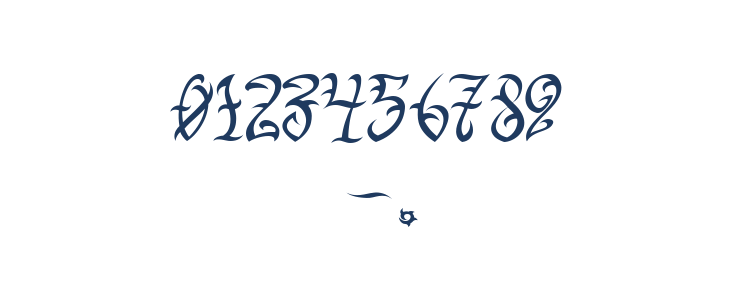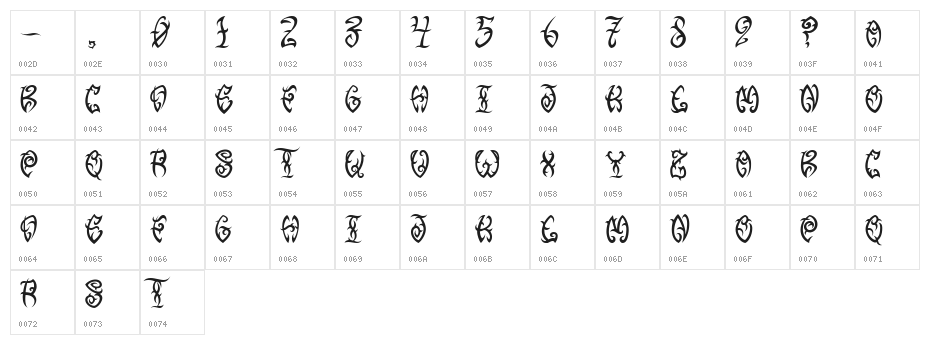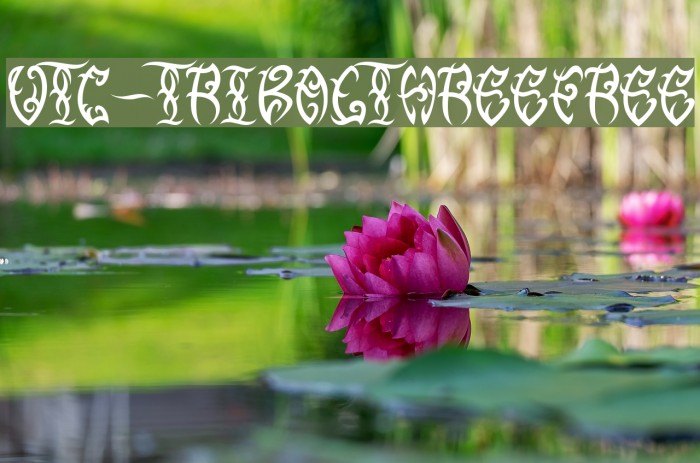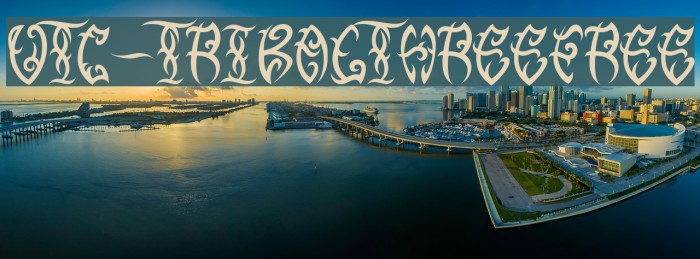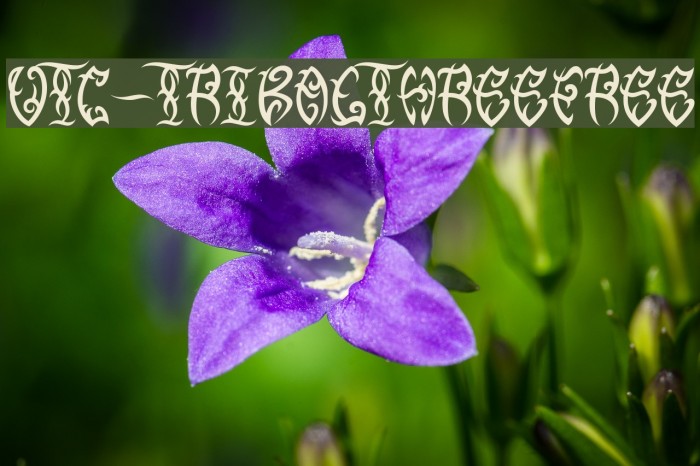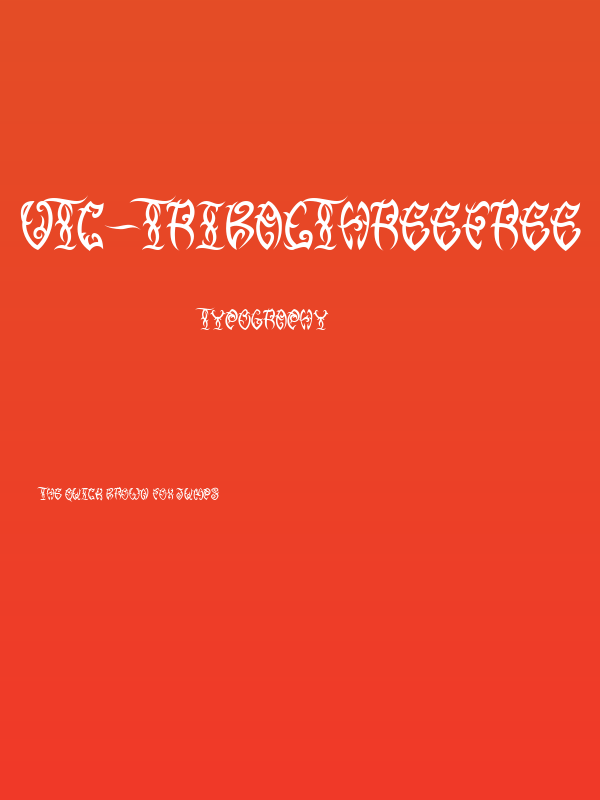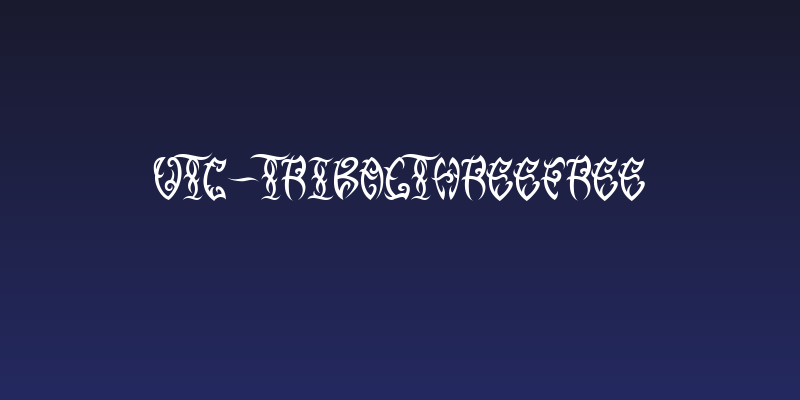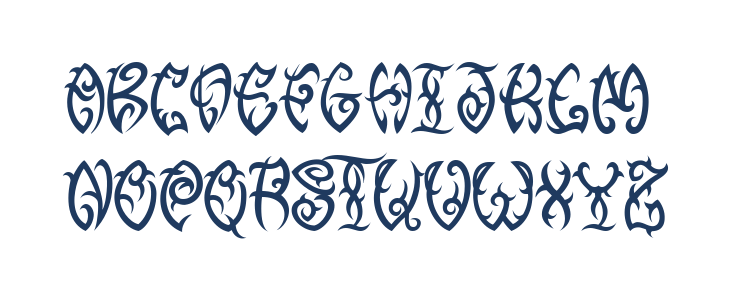
VTC-TribalThreeFree Font
VTC-TribalThreeFree Description
This font features a bold and intricate tribal design, characterized by sharp edges and flowing curves that intertwine to create a sense of movement and energy. The letters are highly stylized, with each character resembling a piece of tribal art, making it visually striking and unique. The font's decorative nature is evident in its elaborate details, which give it a strong presence and an artistic flair. It's suitable for projects that require a bold statement or a touch of cultural artistry.
| Proposed Projects | Ideal for tattoo designs, album covers, posters, and branding that seeks to convey strength and cultural depth. |